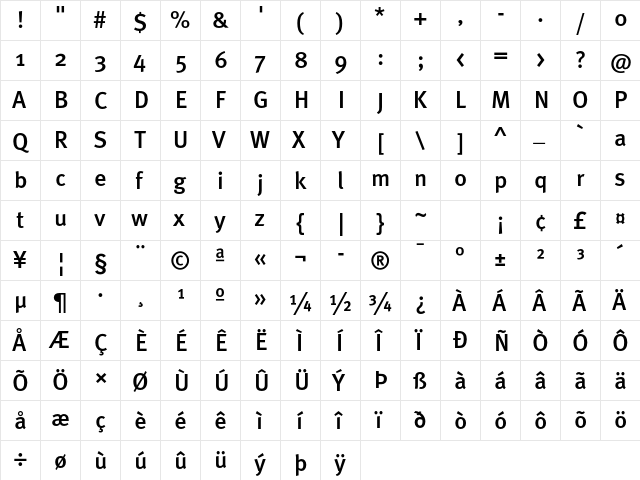
MetaPro-Medium Regular
| Foundry | FSI Fonts und Software GmbH |
| Designer | Erik Spiekermann |
Design Context for MetaPro-Medium Typeface
MetaPro-Medium takes a measured approach to typography — its balanced proportions and neutral character make it a reliable workhorse for both digital and print work.